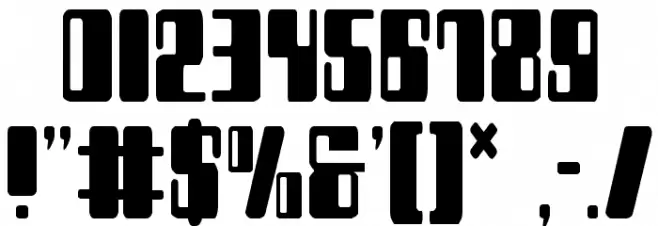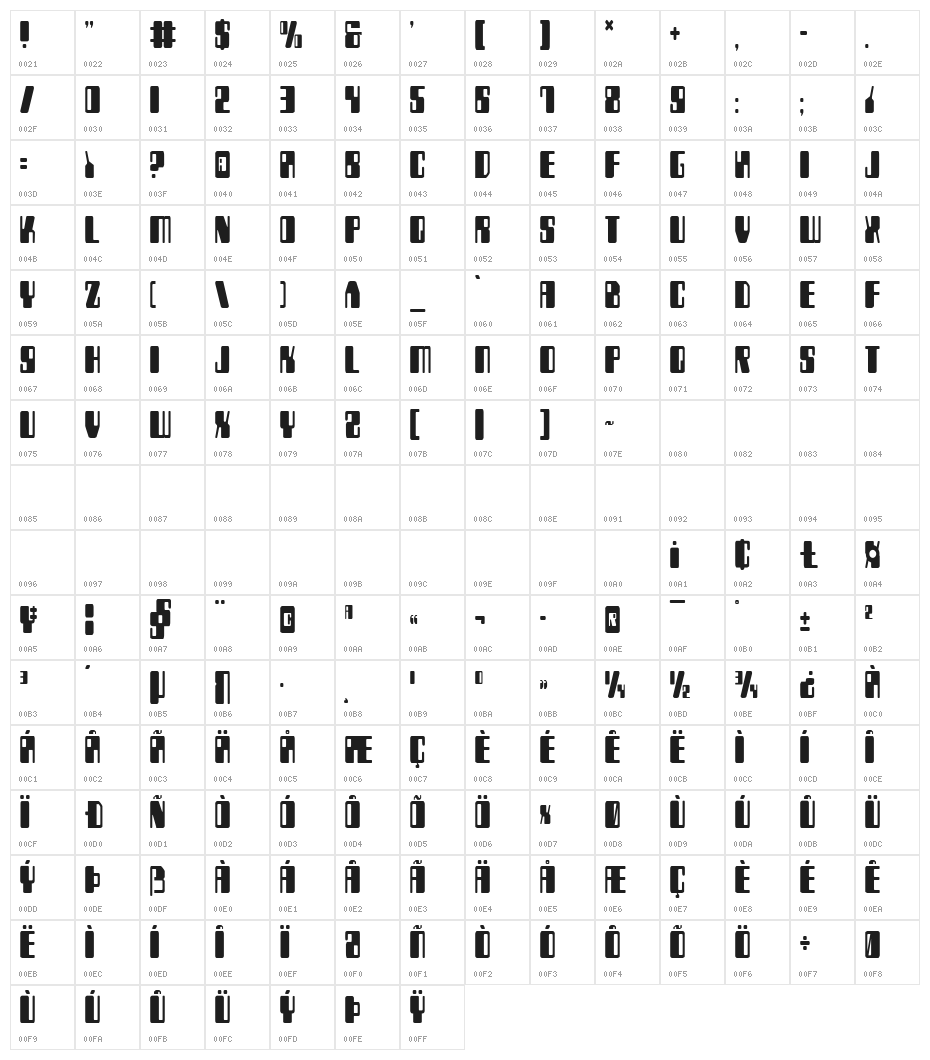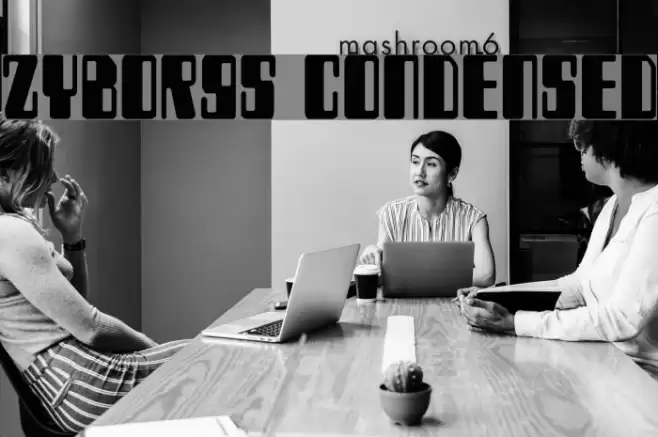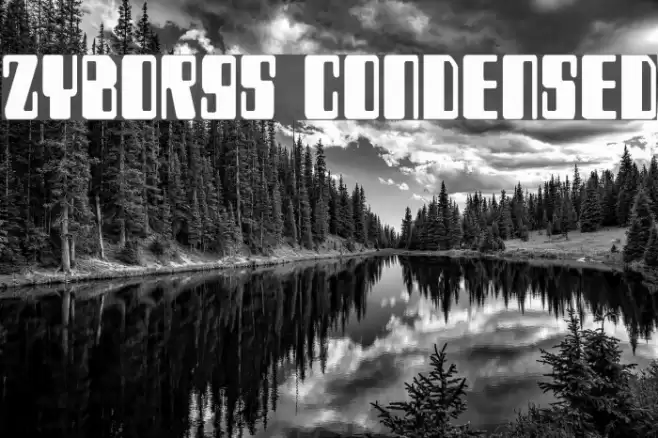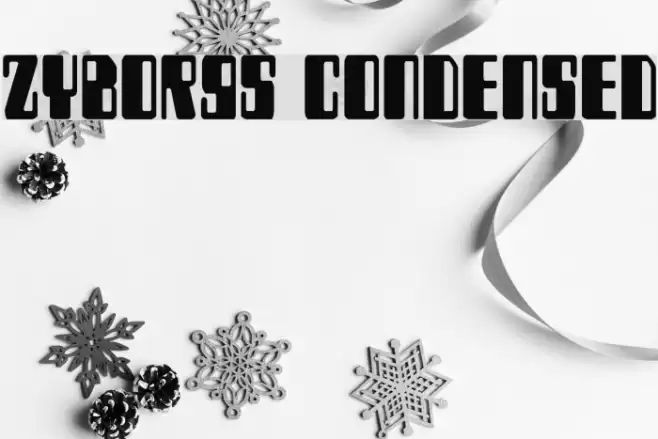
Zyborgs Condensed Font
Zyborgs Condensed Description
This font features a bold and futuristic design with a condensed structure, characterized by its blocky and geometric letterforms. The uppercase and lowercase letters share a consistent width, creating a uniform appearance. The numbers and special characters maintain the same bold style, enhancing the overall cohesiveness. The font's design is reminiscent of digital or sci-fi themes, making it suitable for projects that require a modern and technological aesthetic. Its strong presence and unique style make it stand out, while the condensed nature allows for efficient use of space.
| Proposed Projects | Ideal for sci-fi themed posters, video game titles, tech branding, and futuristic designs. |